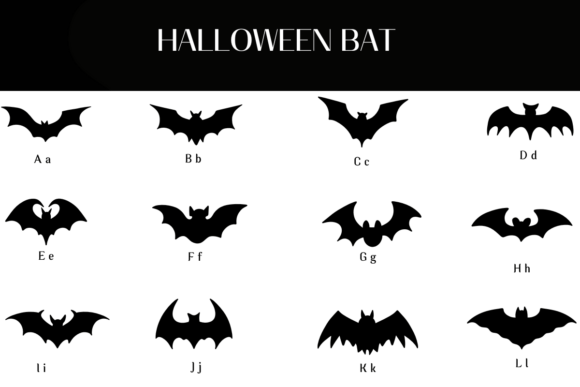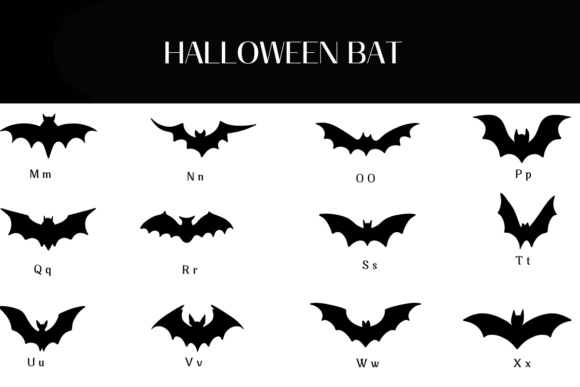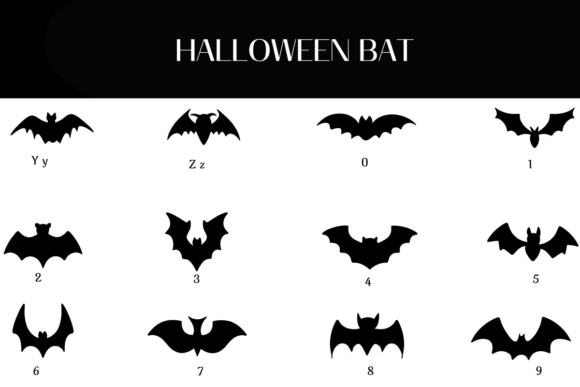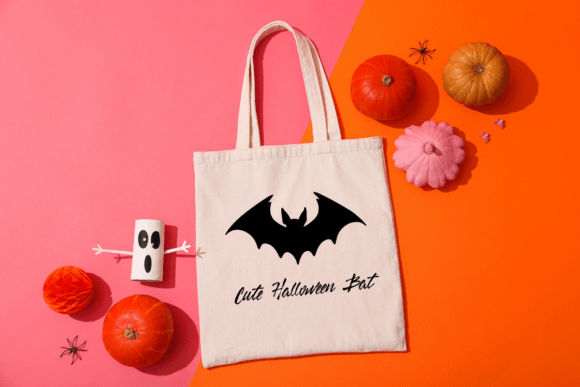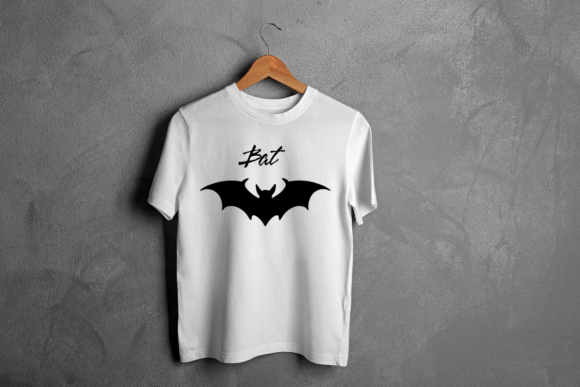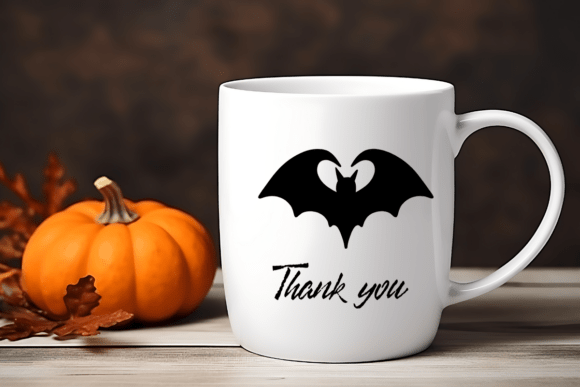
Unleash the Spooky Spirit with Halloween Bat Font
As the spookiest time of the year approaches, designers and crafters are on the lookout for the perfect typography to add a touch of eerie elegance to their Halloween-themed projects. Look no further than the Halloween Bat Font, a striking dingbat font that is sure to cast a spell on your audience. Loaded with a variety of bat illustrations, ranging from cute and friendly to spooky and mysterious, this font is perfect for creating eye-catching Halloween invitations, decorations, packaging, or eerie branding.
A Font that Embodies the Spirit of Halloween
The Halloween Bat Font is designed to deliver classic gothic vibes in a playful way. Its unique blend of adorable and eerie bat illustrations makes it an ideal choice for designers and crafters who want to add a touch of whimsy to their Halloween-themed projects. Whether you’re creating invitations, decorations, or packaging, this font is sure to make your designs stand out from the crowd.
Key Features of Halloween Bat Font
- Variety of Bat Illustrations: The Halloween Bat Font comes with a range of bat illustrations, from cute and friendly to spooky and mysterious. This variety allows you to choose the perfect bat to match the tone and style of your project.
- Perfect for Halloween Projects: This font is specifically designed for Halloween-themed projects, making it a must-have for designers and crafters who want to create spooky and eye-catching designs.
- Classic Gothic Vibes: The Halloween Bat Font embodies classic gothic vibes in a playful way, making it perfect for designers and crafters who want to add a touch of elegance to their Halloween-themed projects.
Uses for Halloween Bat Font
The Halloween Bat Font is versatile and can be used for a variety of projects, including:
- Halloween Invitations: Create spooky and eye-catching invitations for Halloween parties, trick-or-treat events, or haunted house attractions.
- Decorations: Use the Halloween Bat Font to create decorations such as garlands, banners, or signs that will add a touch of eerie elegance to your Halloween display.
- Packaging: Add a touch of whimsy to your Halloween-themed packaging with the Halloween Bat Font. Perfect for candy, toy, or treat packaging.
- Eerie Branding: Use the Halloween Bat Font to create eerie and eye-catching branding for your Halloween-themed business or product.
Tips for Using Halloween Bat Font
Here are a few tips for using the Halloween Bat Font:
- Experiment with Different Sizes: Experiment with different font sizes to create a variety of effects, from large and bold to small and subtle.
- Combine with Other Fonts: Combine the Halloween Bat Font with other fonts to create a unique and eye-catching design.
The Halloween Bat Font is a must-have for designers and crafters who want to add a touch of eerie elegance to their Halloween-themed projects. With its variety of bat illustrations, classic gothic vibes, and versatility, this font is perfect for creating eye-catching Halloween invitations, decorations, packaging, or eerie branding. So why wait? Download the Halloween Bat Font today and unleash the spooky spirit in your designs!